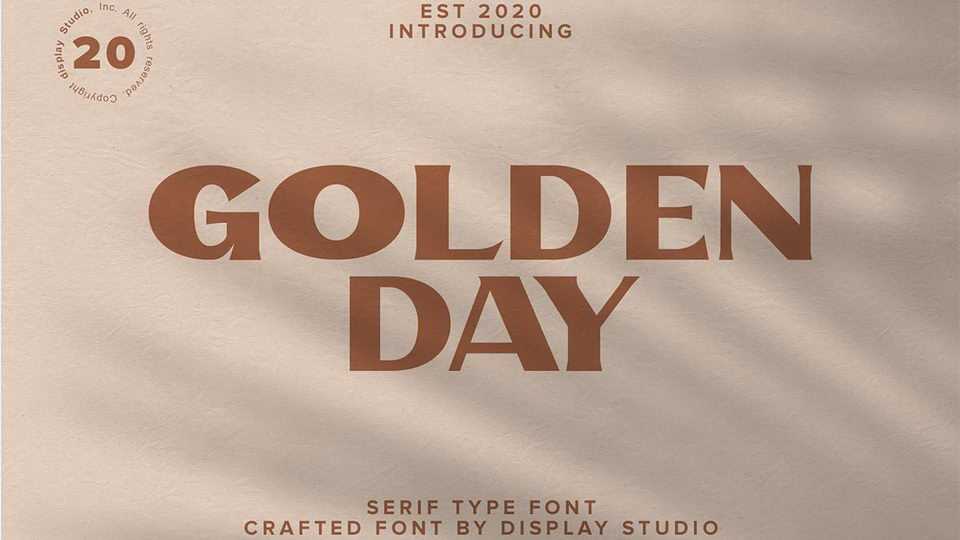
Download Golden Day font, a bold yet elegant sans serif typeface. IGolden Day is perfect for brand logo, invitations, greeting card, or even any kind of project.
Designer: Display Studio